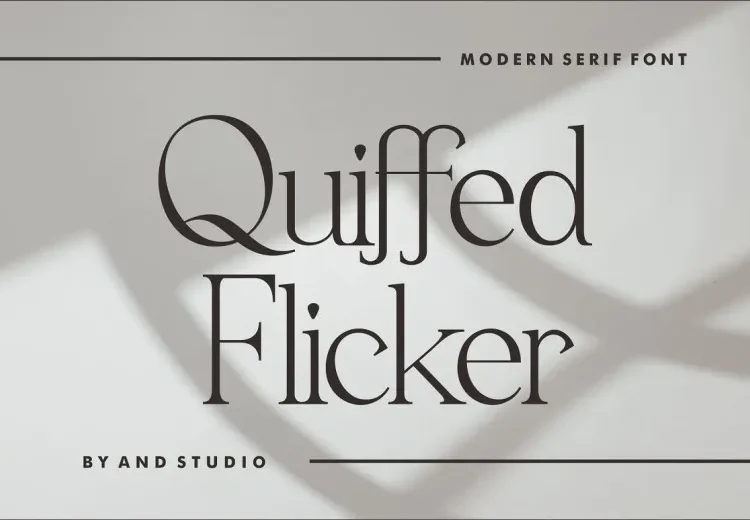
Quiffed Flicker Font
Quiffed Flicker is a premium serif typeface crafted to perfection, blending the timeless charm of traditional serif fonts with a contemporary twist. Designed with precise attention to detail, this font exudes sophistication and professionalism, making it a versatile choice for any design project. Its clean lines, balanced proportions, and subtle serifs ensure high clarity and accessibility, delivering a harmonious equilibrium of modern and classic aesthetics.
This typeface is incredibly adaptable, suitable for a wide range of applications such as headlines, body text, or even combination designs. Whether you’re crafting an eye-catching logo, designing a sleek website, or creating polished editorial layouts, Quiffed Flicker elevates your work with its refined elegance. Its versatility and timeless appeal make it an essential addition to any designer’s toolkit.
When paired with complementary fonts like Modist, Quiffed Flicker becomes the cornerstone of stylish and impactful designs. Whether for branding, packaging, or professional presentations, this typeface helps achieve a polished, high-end appearance that resonates with its audience.